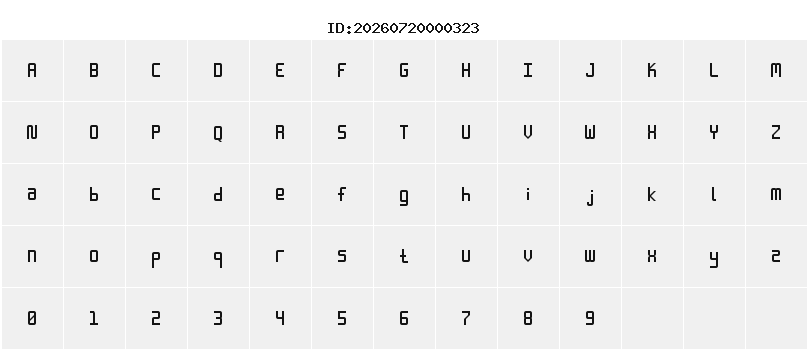
• Font Name: Enlatique Rounded
• Full Font Name: Enlatique Rounded Regular
• Designer: Diciganteng
• Description: “Enlatique Rounded” was built with FontStruct
About Enlatique Rounded.ttf
Enlatique Rounded.ttf is a modern, elegant sans-serif font designed for ultimate readability and visual harmony. Perfect for branding, headlines, web design, and print materials.